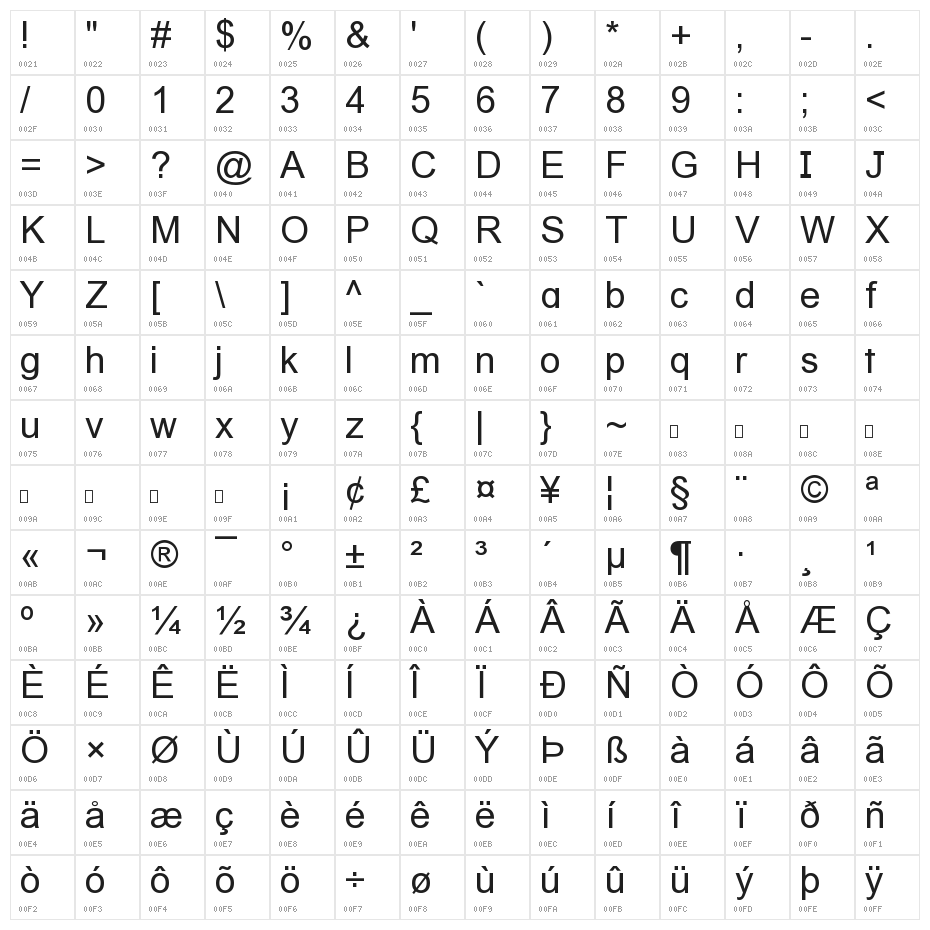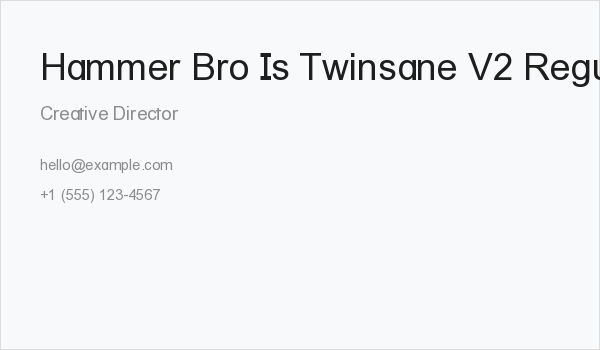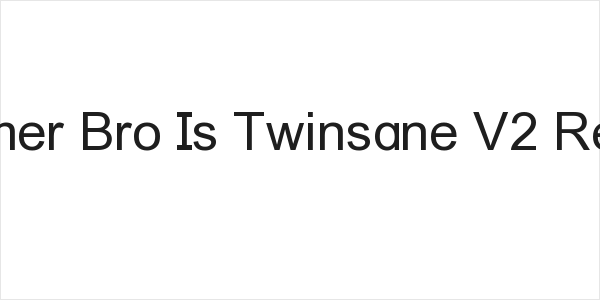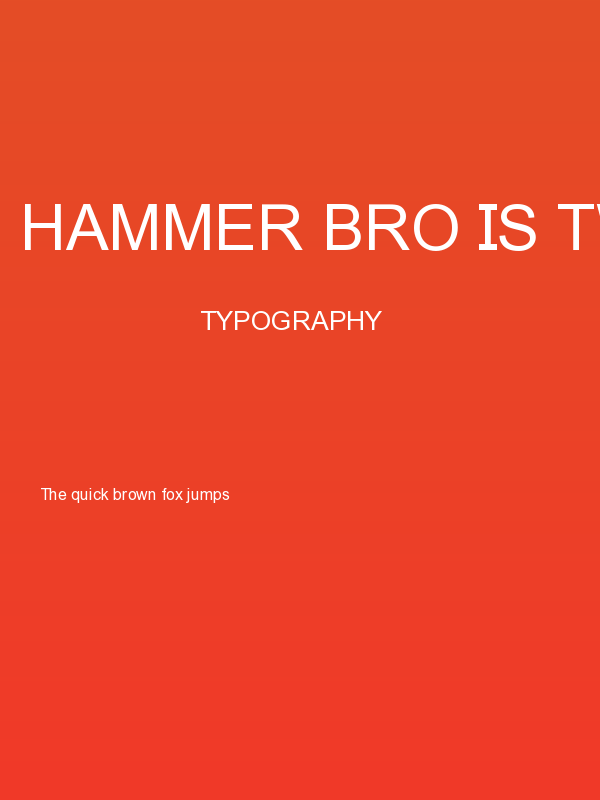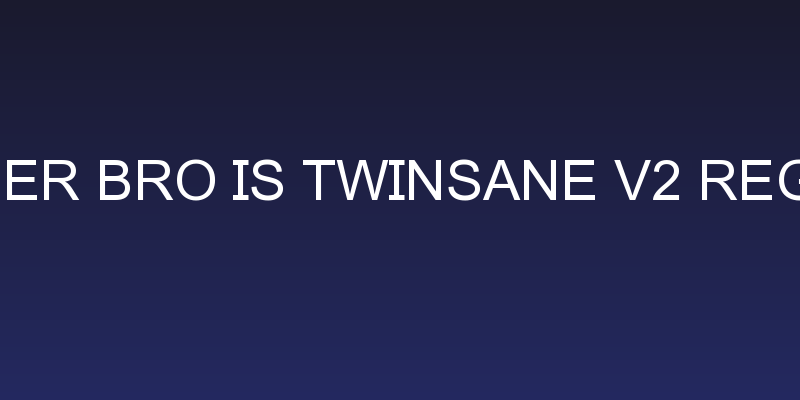
Hammer Bro Is Twinsane V2 Regular Font
Hammer Bro Is Twinsane V2 Regular Description
This font features a clean and modern sans-serif design with uniform stroke widths and a geometric structure. The uppercase letters are bold and assertive, while the lowercase letters maintain a consistent style that complements the uppercase. The numerals are clear and easily distinguishable, making them suitable for various applications. The special characters are well-defined, ensuring readability and versatility. This font's simplicity and clarity make it ideal for digital and print media, offering a professional and contemporary look.